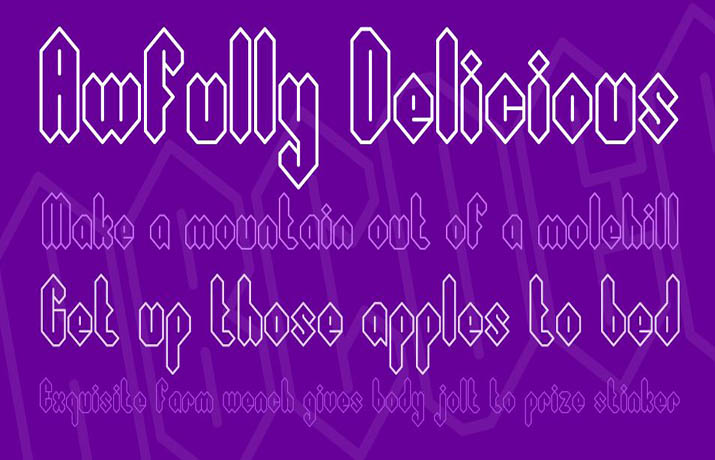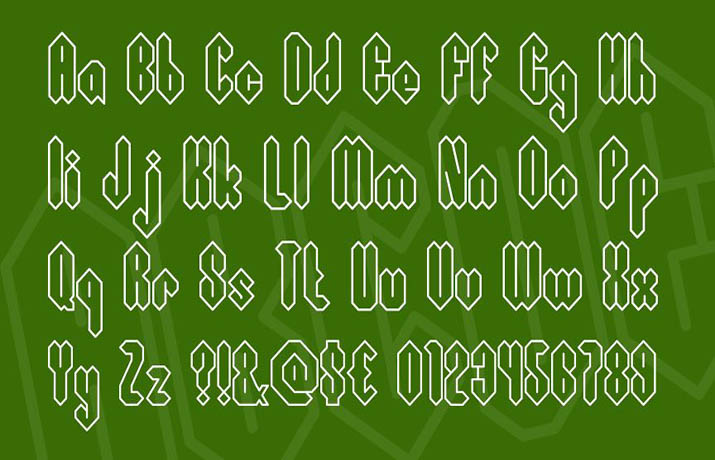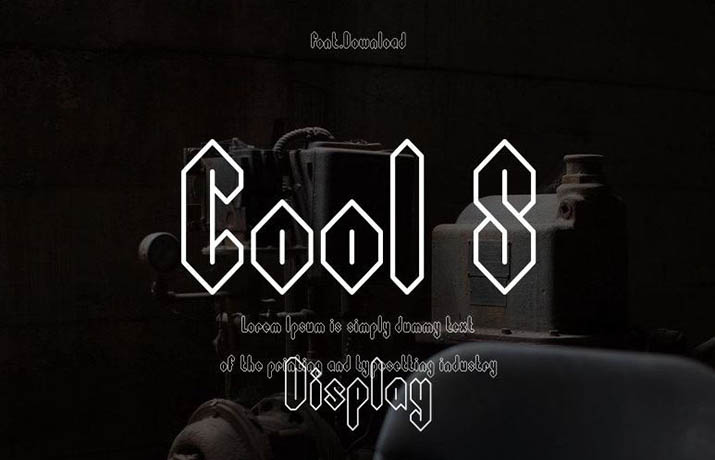
Cool S Font is an outline display typeface that comes with unique and stylish “S” letterforms. Use it when you need to give your design a graffiti or street art.
This font family comes in a single regular weight with TTF format. This single style contains 98 glyphs like uppercase, lowercase, numbers, symbols, and a few punctuations. Plus, it also supports 34 languages.
This beautiful font is made with outlines and these outlines are thin. Those thin strokes show up clearly in display and printing projects without spreading out the words.
Cool S typeface is suitable for any design project such as branding, posters, quotes, t-shirt printing, and more! And, the outline font is eye-catching and will stand out on any piece you create.
Features of This Font:
- Uppercase & lowercase letters, numbers, symbols, and punctuation
- 98 unique glyphs
- 34 multilingual languages support
| Style: | Outline, Fancy, Display |
- Try it out for book covers, game graphics, product designs, banners for social media, advertisements, headers, titles, cards for special events, product packaging, posters, headers, titles, advertisements, headings, product packaging, cartoon posters, comics, headers, titles, posters for social media, signs for product designs, flyers, signs, movie posters, special quotes, and a lot more.